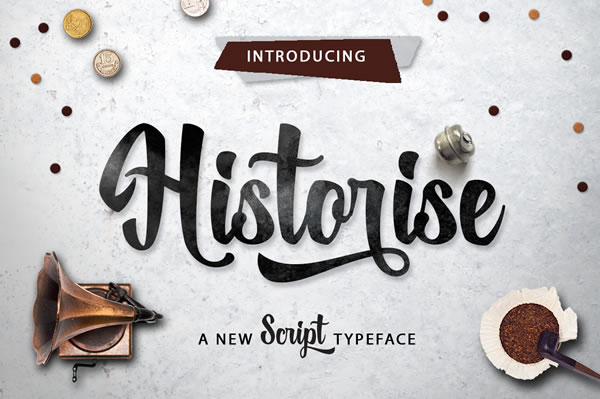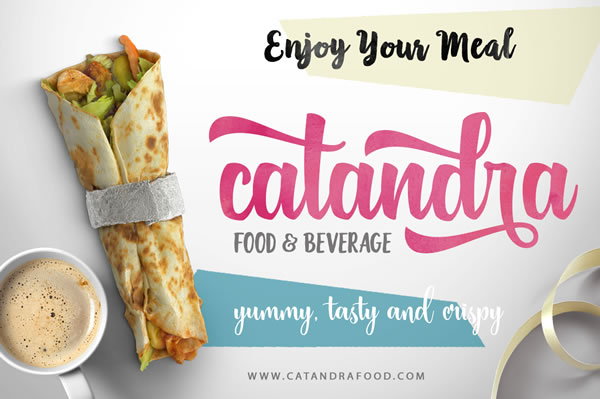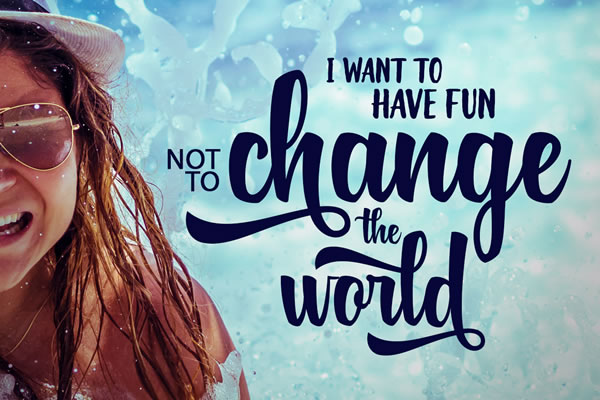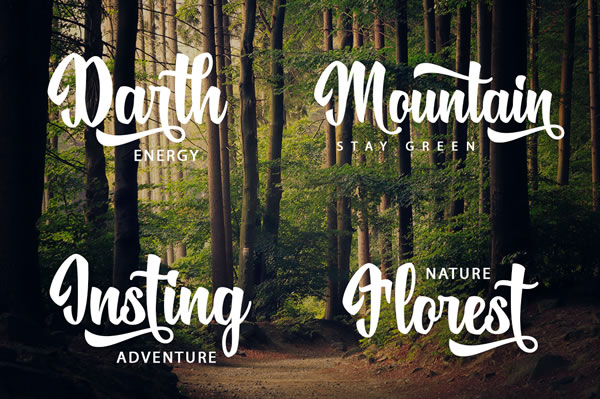
About Historise Font
Historise is a stunning typeface font with a unique bold look & feel to your design. Add this lovely freebie to your creations and take your designs to the next level!